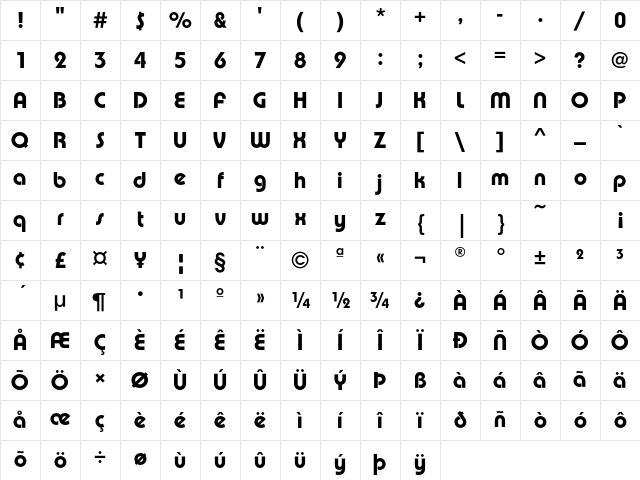
Complete PumpEF Medium glyph index. Displaying only characters natively supported by PumpEF Medium font.
PumpEF is a composed and adaptable typeface that performs quietly and consistently across a wide range of design contexts.